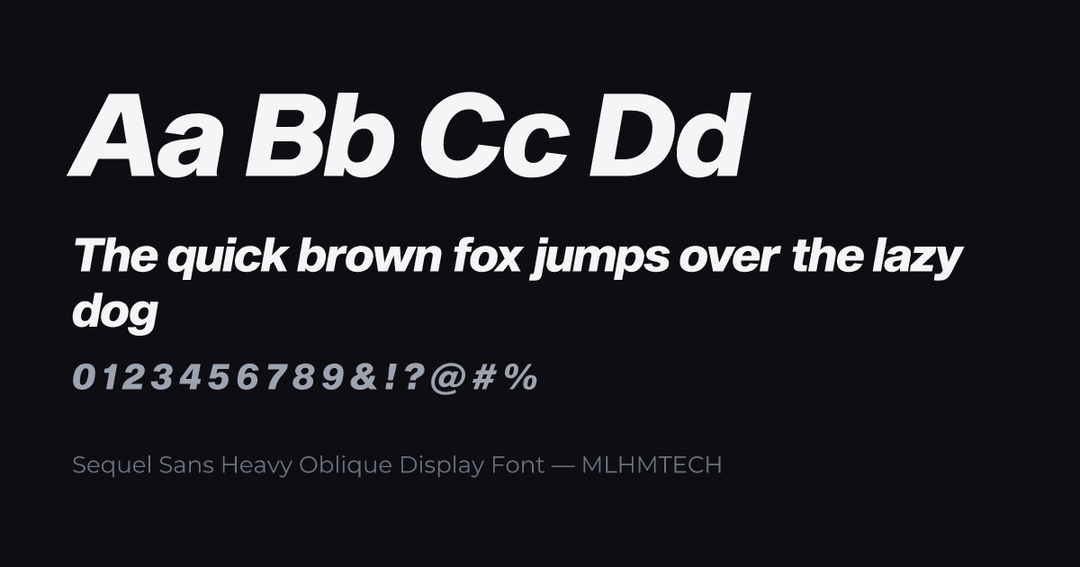
Sequel Sans Heavy Oblique Display Font
Sequel Sans Heavy Oblique is a bold, slanted sans-serif font ideal for making a strong visual statement in headlines, posters, and branding projects.
Sequel Sans Heavy Oblique is a high-contrast, geometric sans-serif with a pronounced slant, exuding confidence and modernity. Its heavy weight ensures excellent legibility even at large sizes, making it perfect for display purposes.
This font is part of the Sequel Sans family, known for its clean lines and contemporary feel. The oblique angle adds dynamic energy, suitable for motion graphics, editorial design, and impactful advertising.